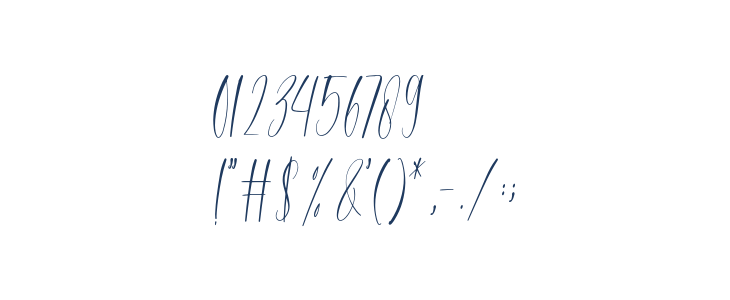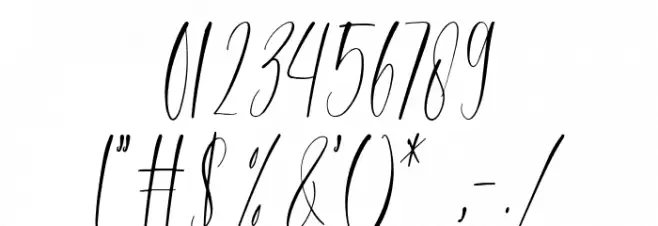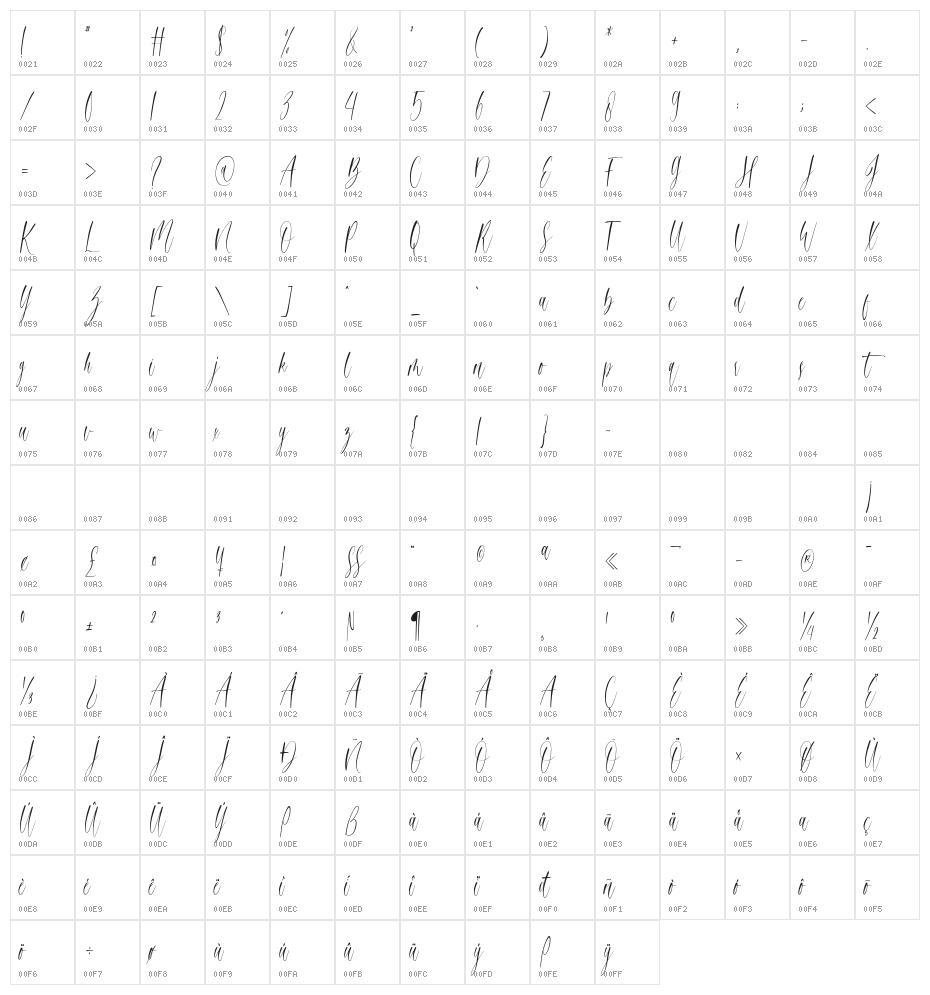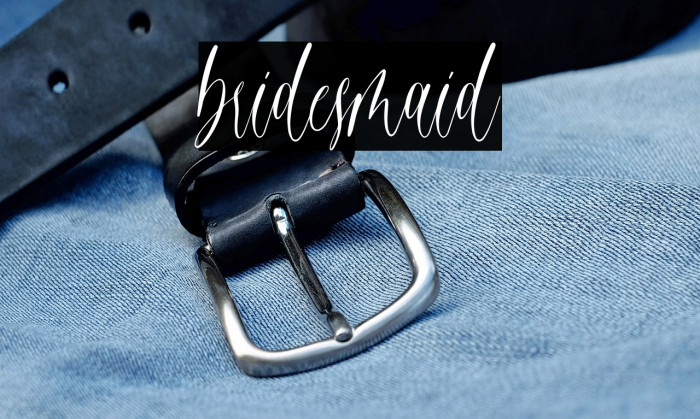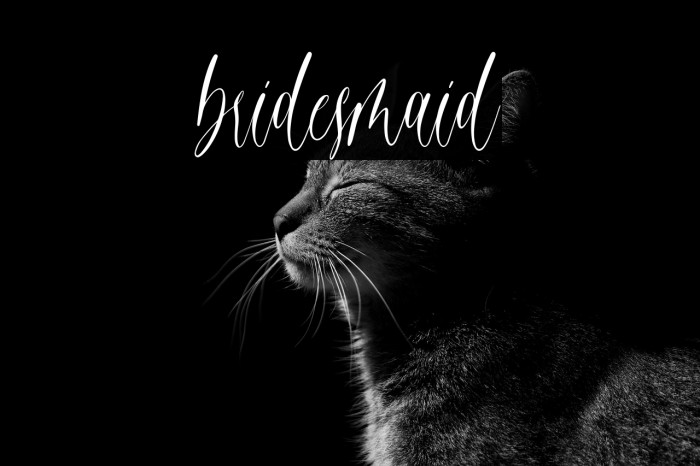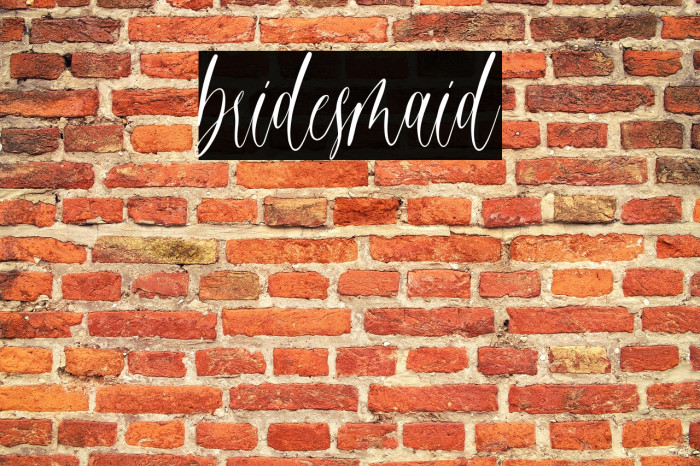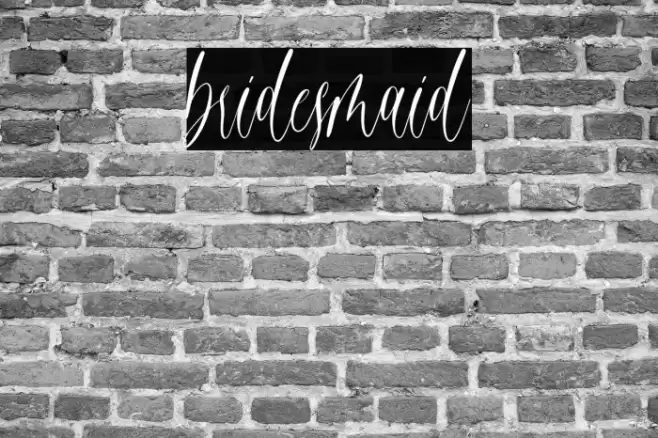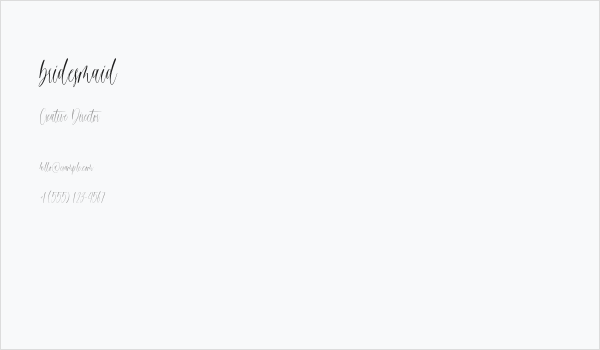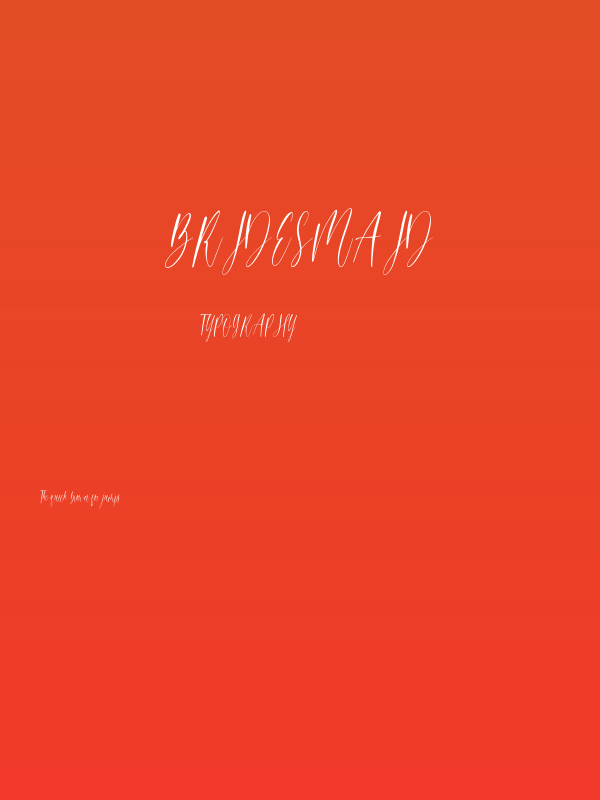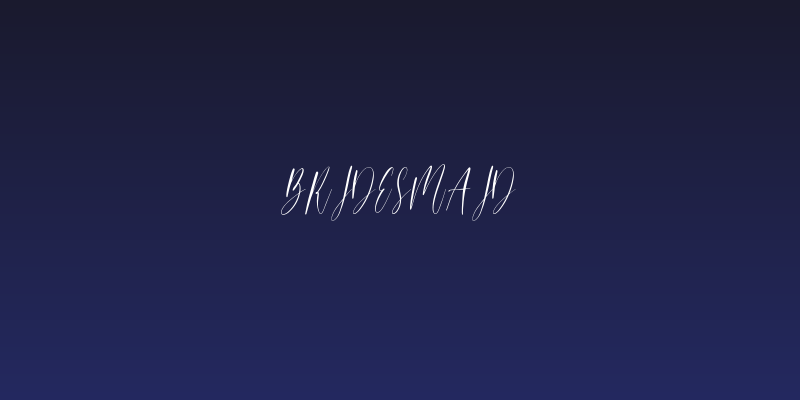
bridesmaid Font
bridesmaid Description
This elegant script font features a flowing, handwritten style with a modern twist. The characters are elongated and slightly slanted, giving a sense of movement and grace. The strokes vary in thickness, providing a dynamic and lively appearance. The uppercase letters are particularly ornate, with sweeping curves and loops that add a touch of sophistication. The lowercase letters maintain a consistent style, complementing the uppercase with their delicate and airy form. This font is perfect for adding a personal and stylish touch to any design project.
| Proposed Projects | Ideal for wedding invitations, greeting cards, branding, and elegant logos. |